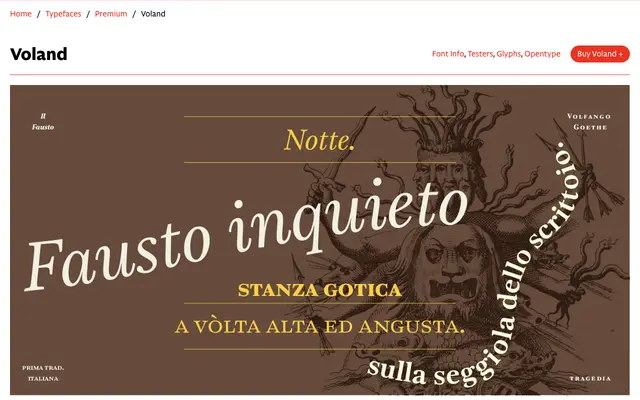
Voland
CAST · Luciano Perondi · 2010
A text serif rooted in Baskerville's 1757 Double Pica, originally cut for the Voland publishing house in 2010 and updated with a variable font and expanded character set.
Designed by Luciano Perondi for the Italian Voland publishing house, this transitional serif deliberately restrains its thick/thin contrast to match the page colour of Simoncini Garamond, a benchmark of Italian book publishing since the 1960s. Five weights run from Book to ExtraBold with matching italics, small caps in every weight, oldstyle and tabular figures, and a variable font version. The increased x-height and open counters make it comfortable at text sizes in both book and magazine settings.
Drawn from Baskerville's Double Pica specimen of 1757, Voland is a transitional serif with deliberately reduced thick/thin contrast and an increased x-height for text use.